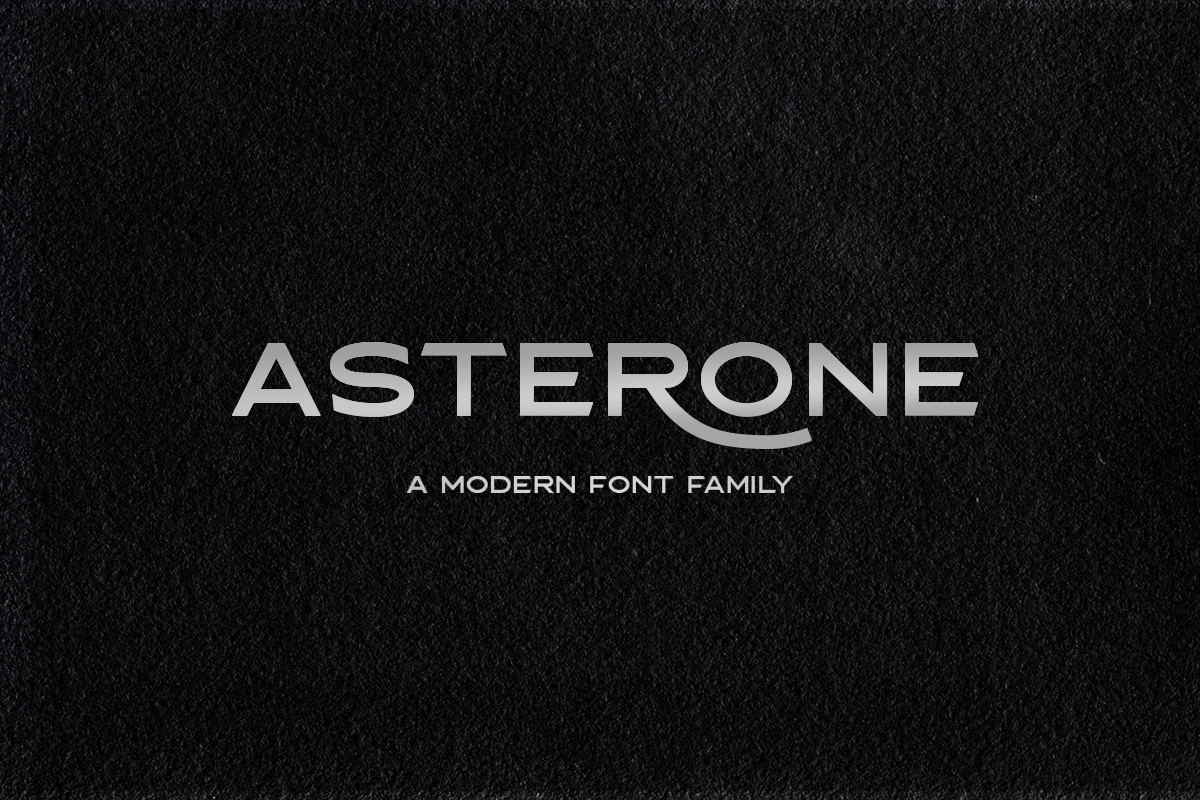
Asterone Font
The Asterone Font is ideal for space exploration agencies, astronomy education materials, planetarium exhibits, sci-fi movie titles, cosmic-themed video games, space technology branding, astronomical research publications, and futuristic corporate identities. This stellar typeface brings celestial grandeur and cosmic sophistication to any design project requiring astronomical elegance and stellar presence.
What makes the Asterone Font so exciting is its extraordinary ability to capture the infinite majesty of deep space through letterforms that seem to shimmer with starlight and cosmic energy. The font features sleek, angular characters with subtle stellar details and cosmic textures that evoke the mysterious beauty of distant galaxies, nebulae, and asteroid formations floating in the vast darkness of space.
The Asterone Font family includes light, regular, bold, and extended variations, along with astronomical symbols, cosmic ornaments, and stellar decorative elements, providing designers with comprehensive tools for creating authentic space-themed brand experiences and otherworldly design communications.
Whether you're developing materials for space missions, creating educational content about astronomy, or designing graphics for science fiction entertainment, this font delivers cosmic authenticity. The carefully engineered letterforms maintain excellent readability while conveying the technological precision and infinite wonder that characterizes humanity's quest to understand and explore the universe.
Scientific professionals appreciate the font's balance between technical accuracy and artistic inspiration, creating typography that educates while inspiring wonder about cosmic phenomena. The stellar design elements help brands establish connections with audiences fascinated by space exploration, astronomical discovery, and the limitless possibilities of interstellar adventure.
The Asterone Font performs exceptionally well in applications where scientific credibility and cosmic wonder intersect, from NASA mission documentation to space-themed entertainment venues. The font's astronomical heritage makes it particularly effective for projects celebrating human achievement in space exploration and scientific discovery.